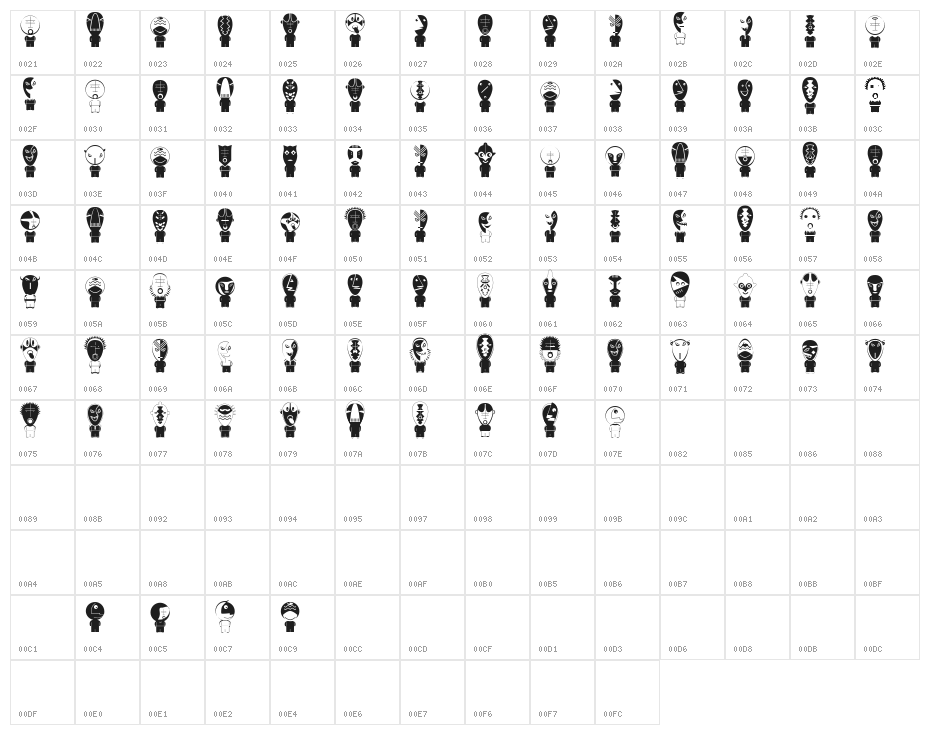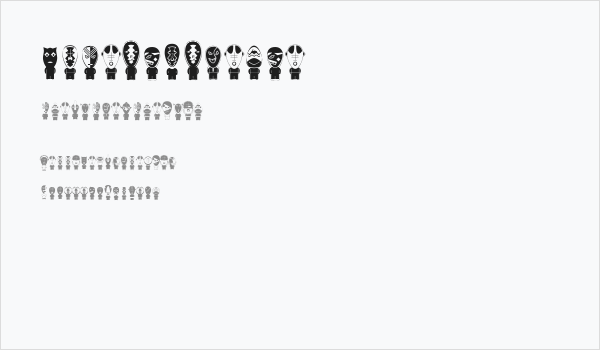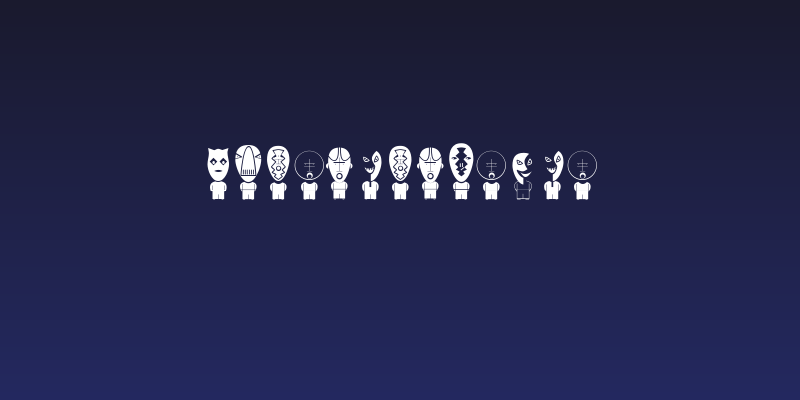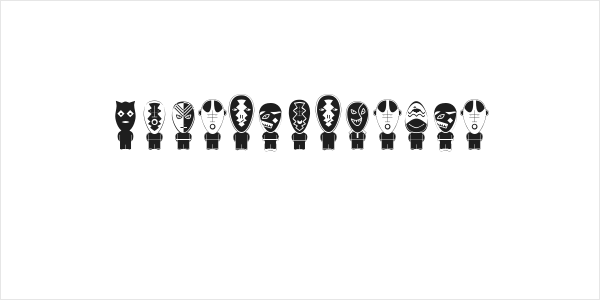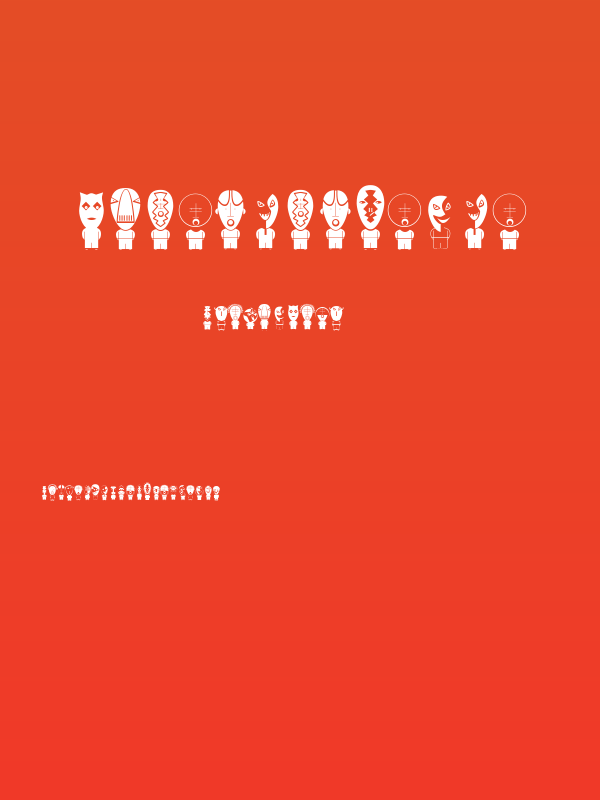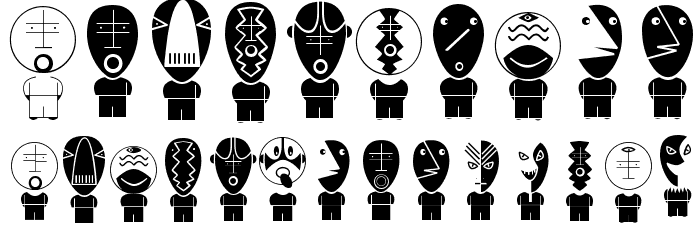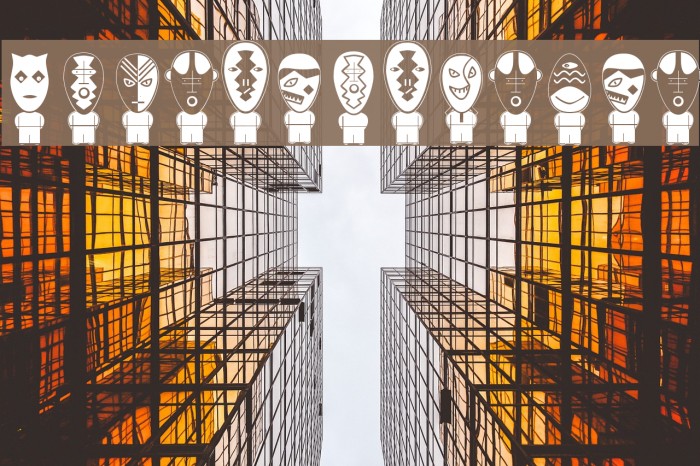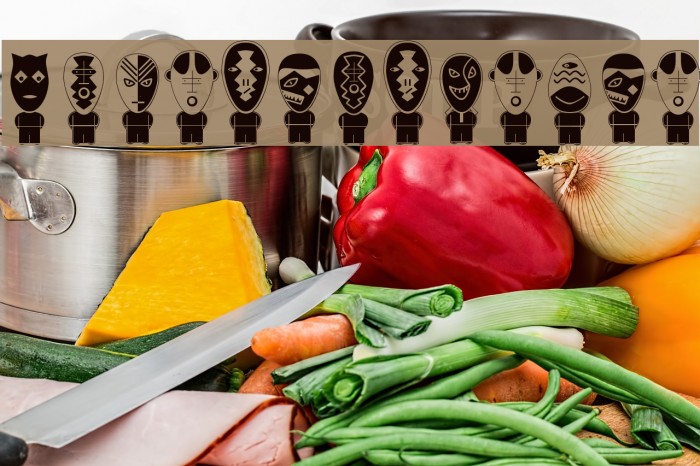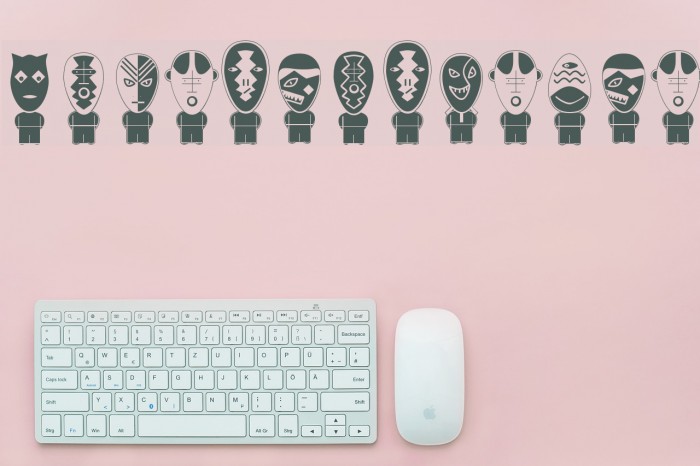
AliensInverse Font
AliensInverse Description
This image consists of a collection of stylized, abstract alien-like characters with bold, geometric shapes and high contrast between black and white. Each figure features unique facial patterns and body shapes, emphasizing a playful and decorative approach rather than a traditional font structure.
| Overall Style | Decorative, Playful, Abstract |
| Use Case | Illustrations, Decorative elements, Branding, Posters |
| Proposed Projects | Children’s books, posters, games, branding for sci-fi or creative projects, stickers. |